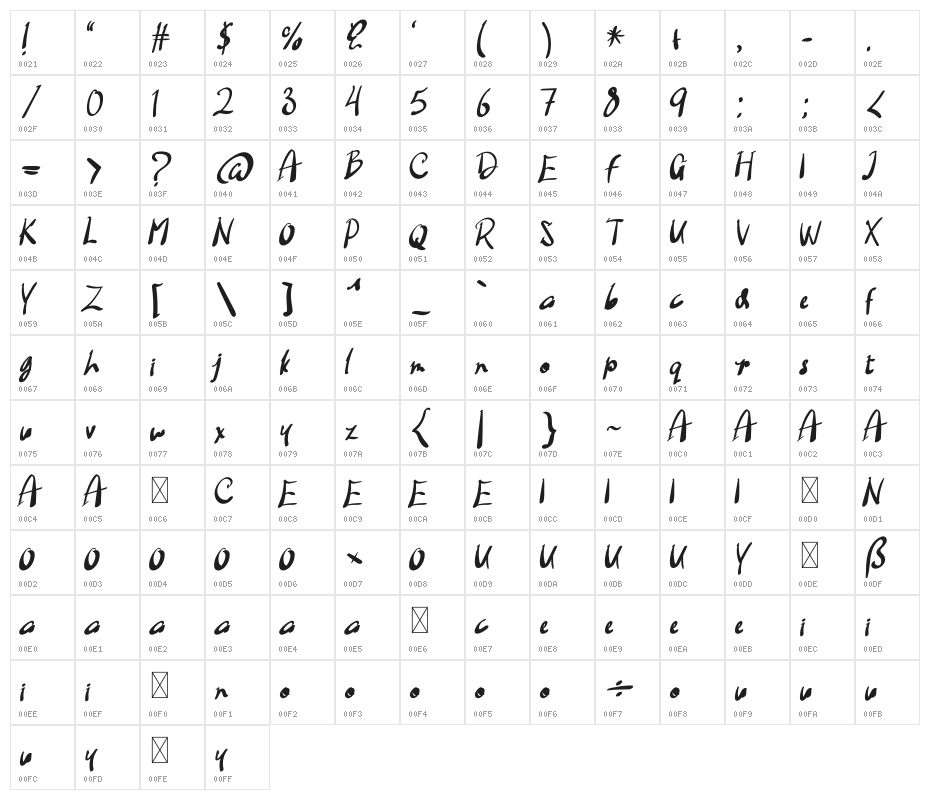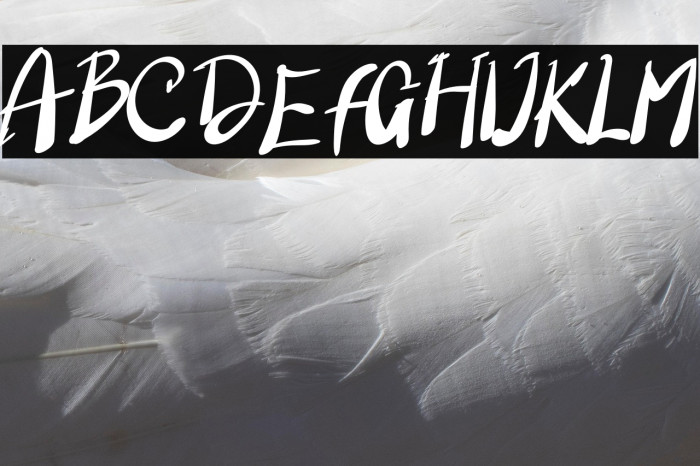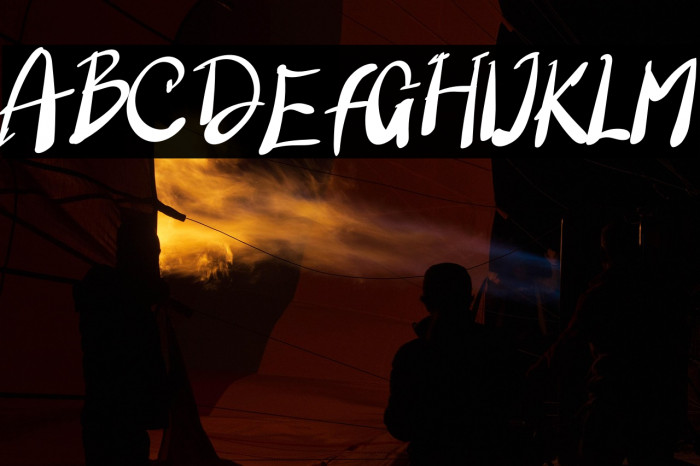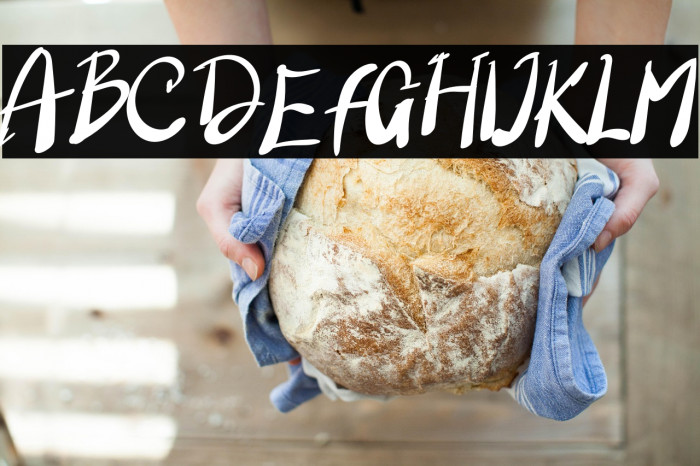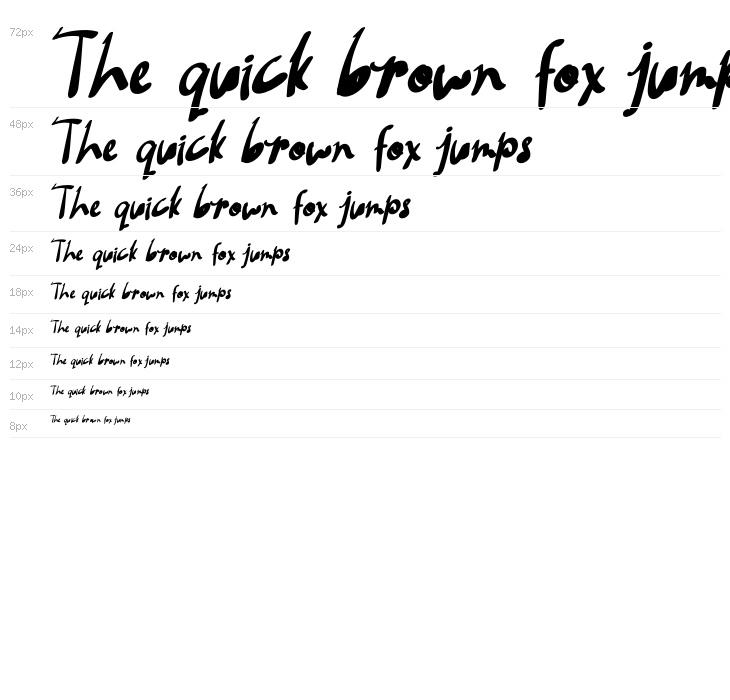
Black Font
Black Description
This font features a bold, expressive style with a handwritten appearance. The letters are fluid and dynamic, with varying stroke widths that add a sense of movement and energy. The uppercase letters are tall and slightly slanted, while the lowercase letters maintain a consistent flow, enhancing the casual and artistic feel. The numbers and special characters follow the same lively design, making the font versatile for creative projects. Its unique character shapes and bold presence make it stand out, suitable for eye-catching designs.
| Proposed Projects | Ideal for branding, posters, invitations, and artistic projects that require a personal touch. |